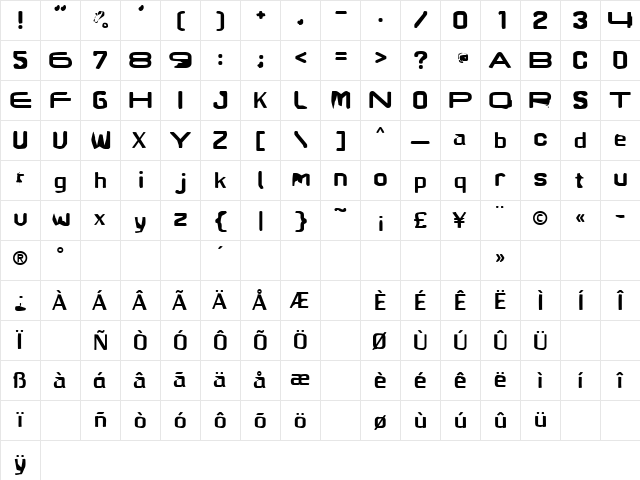
Brunst Regular Font Preview
Brunst Regular
Design Context for Brunst Typeface
Brunst takes a measured approach to typography — its balanced proportions and neutral character make it a reliable workhorse for both digital and print work.